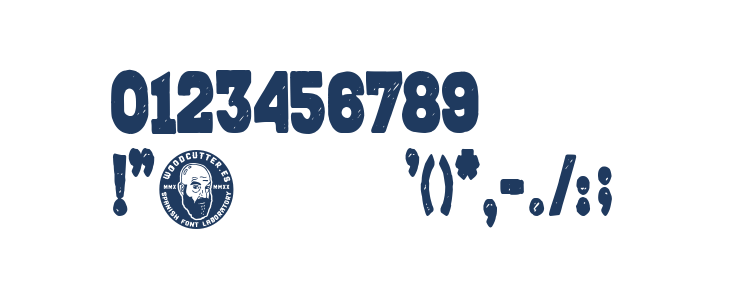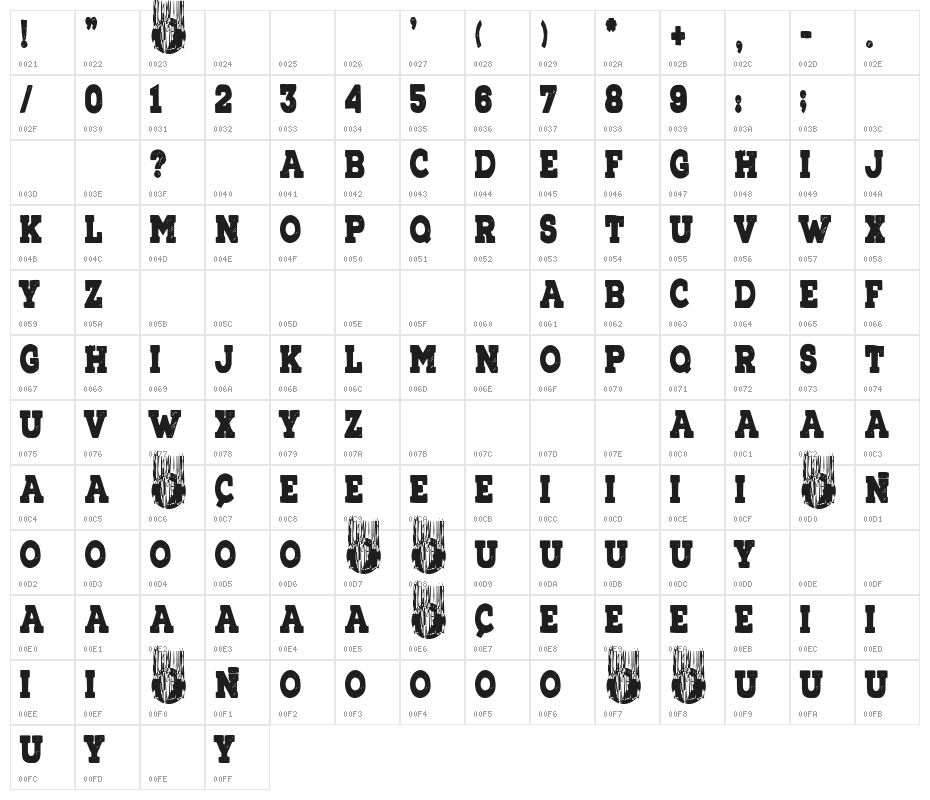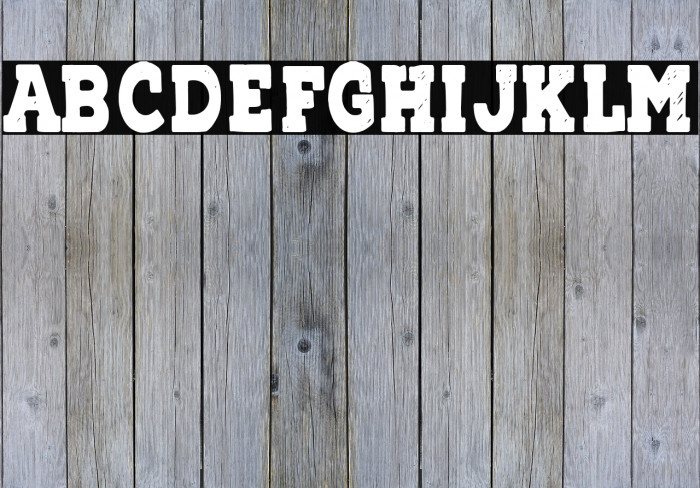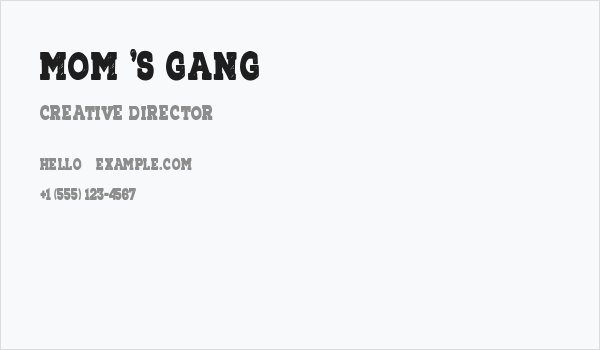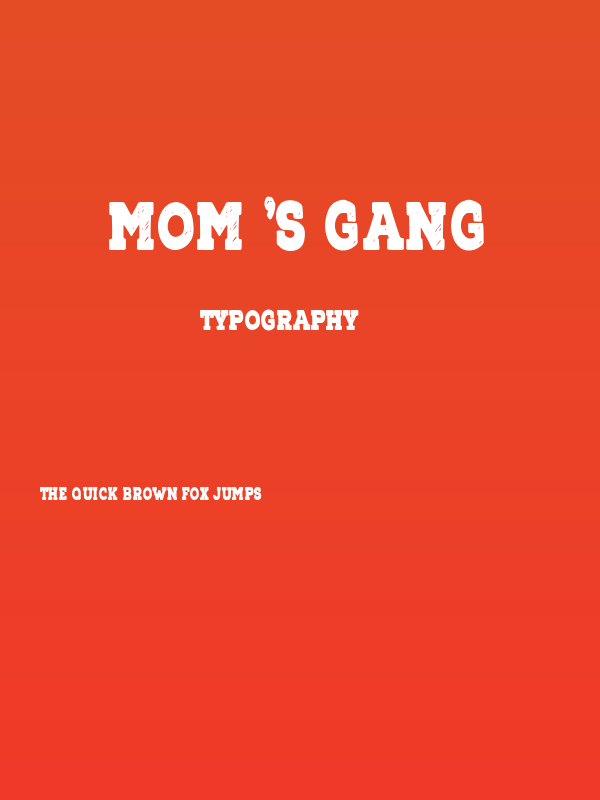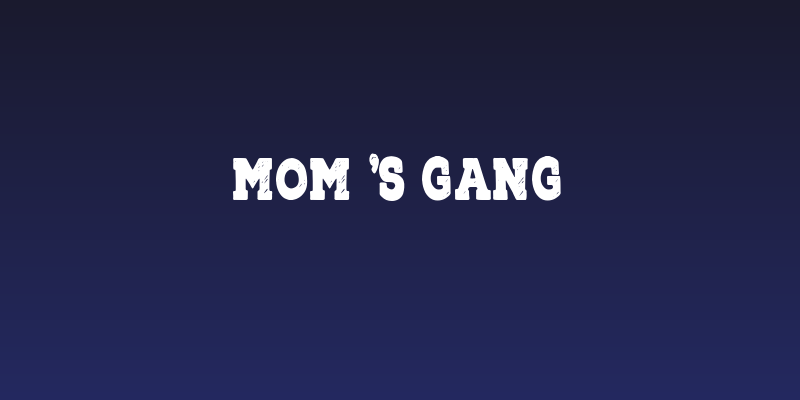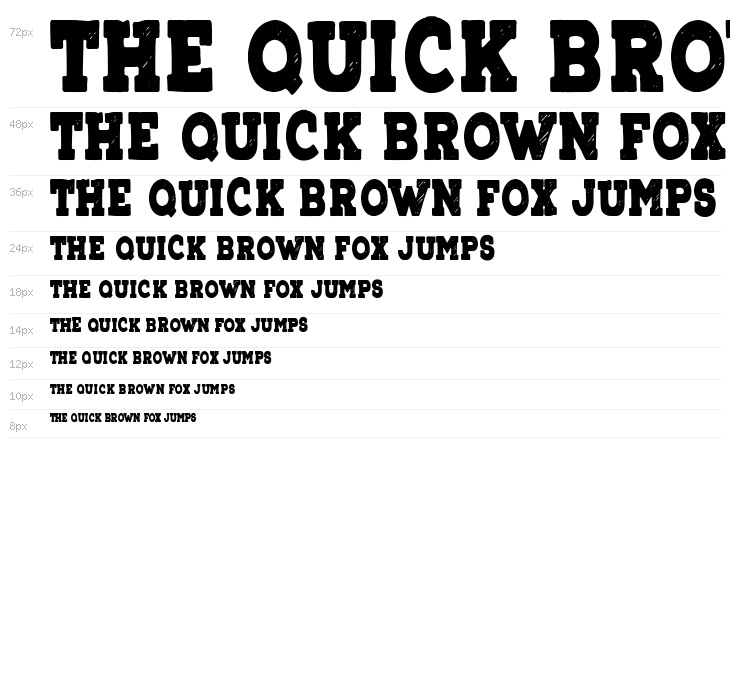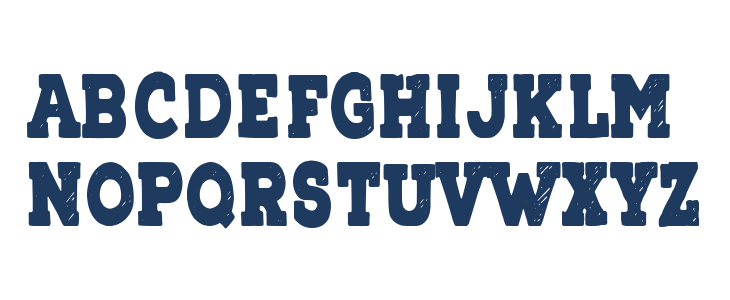
Mom's Gang Font
Mom's Gang Description
This font features a bold, distressed style with a rugged, textured appearance. The characters have a strong presence, with thick strokes and a slightly uneven finish that gives them a vintage, handcrafted feel. The uppercase letters are prominent and assertive, while the lowercase letters maintain the same boldness. Numbers and special characters follow the same design, ensuring consistency across all elements. The font's unique, weathered look makes it ideal for projects that require a touch of nostalgia or a rustic aesthetic.
| Use Case | Logos, Posters, Branding |
| Proposed Projects | Ideal for posters, logos, branding, and any design requiring a vintage or rustic touch. |